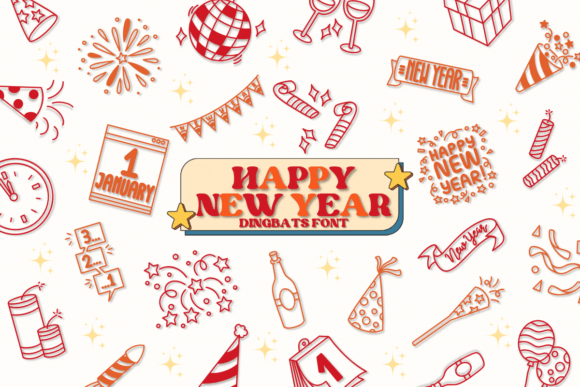
Ring in the New Year with Style
As the clock strikes midnight, and the fireworks light up the sky, many of us feel an overwhelming urge to create something special – a memory that will last a lifetime. For designers, this moment is the perfect opportunity to unleash their creativity and bring joy to loved ones. Whether it’s a heartfelt wedding invitation, a DIY craft project, or a festive decoration, the possibilities are endless.
Enter the Happy New Year Font, a festive dingbats font designed to add a touch of magic to your creative projects. With its playful characters and celebratory vibe, this font is the perfect companion for designers looking to add a little extra sparkle to their work. By incorporating the Happy New Year Font into your designs, you’ll be able to capture the essence of the season and make a lasting impression on your audience.
- Font Family: Happy New Year is a unique, hand-drawn font designed to evoke a festive and celebratory atmosphere.
- Character Count: 250+ characters, including uppercase and lowercase letters, numbers, and punctuation marks.
- Unique Characteristics: The font features intricate details, subtle texture, and a dynamic feel, making it perfect for creating eye-catching titles and headings.
Designer Review: Happy New Year Font
I recently had the chance to work with the Happy New Year Font, and I wanted to share my honest thoughts on it.
- Unique and creative design: The Happy New Year Font is a great example of how to create a font that stands out from the crowd. Its unique and playful design makes it perfect for creating eye-catching titles and headings.
- Wide range of glyphs: The font comes with a wide range of glyphs, including numbers, symbols, and punctuation marks. This makes it easy to create professional-looking text without having to use multiple fonts.
- Support for multiple languages: The Happy New Year Font supports multiple languages, making it a great option for designers who need to create content for a global audience.
- Not ideal for body text: While the Happy New Year Font is perfect for titles and headings, it’s not the best choice for body text. The font can be a bit difficult to read in large blocks of text.
- Limited font sizes: The font only comes in a limited range of font sizes, which can make it difficult to use in certain situations.
The Happy New Year Font is a great addition to any designer’s toolkit. While it has some limitations, its unique design and wide range of glyphs make it a great choice for creating eye-catching titles and headings. If you’re looking for a font that will add some personality to your designs, the Happy New Year Font is definitely worth considering.
The Happy New Year Font is ideal for creating festive and celebratory designs, such as:
– New Year’s Eve invitations
– Party flyers
– Social media posts
– Event banners
– Personalized greeting cards
To get the most out of the Happy New Year Font, try the following:
– Experiment with different font sizes and styles to create visual interest.
– Combine the font with other festive graphics and elements.
– Use the font in conjunction with bold and bright colors to create a lively atmosphere.